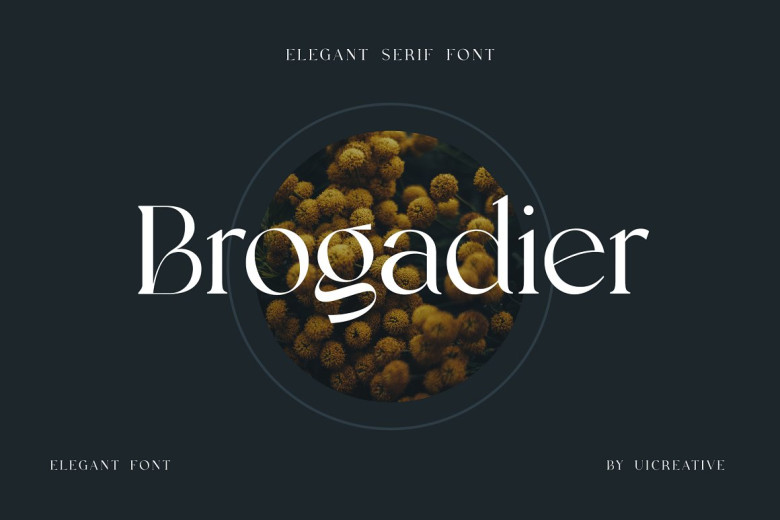
Brogadier Font
Brogadier is a classical serif font that feels beautiful elegant, classical and modern. This font is ideally suited for a wide variety of projects, such as signature , stationery, logo, wedding, typography quotes.
Brogadier Serif Font